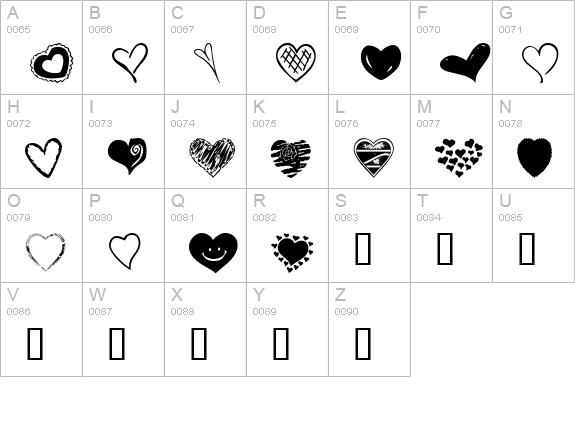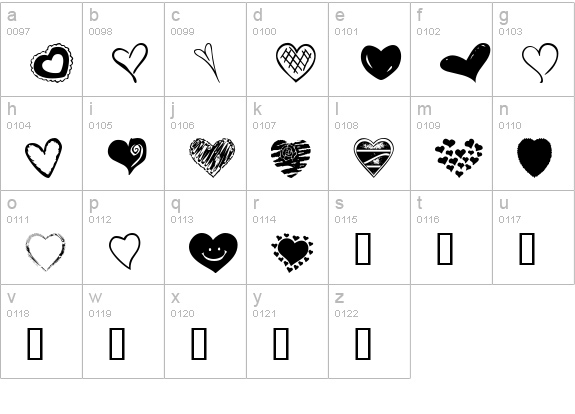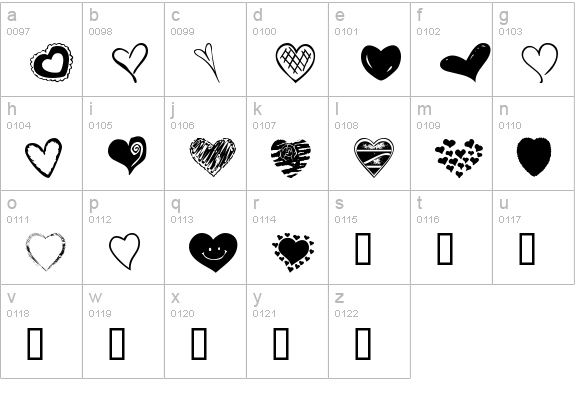
KR Heartalicious Font Details
Introducing KR Heartalicious Font, a whimsical and playful typeface that will add a touch of charm to your designs. This adorable font features heart-shaped accents and a delightful handwritten style that is perfect for projects that need a touch of sweetness. KR Heartalicious Font is not only stylish and fun, but it is also versatile and can be used for a wide range of design projects, from greeting cards to posters to social media graphics. The unique design of this font is sure to capture the hearts of your audience and make your messages stand out. Best of all, KR Heartalicious Font is available for free download at FontsMarket.com. So, whether you're a designer looking for a new font to add to your collection or someone who just wants to add a fun touch to their projects, this font is the perfect choice. Download KR Heartalicious Font today and let your creativity shine!